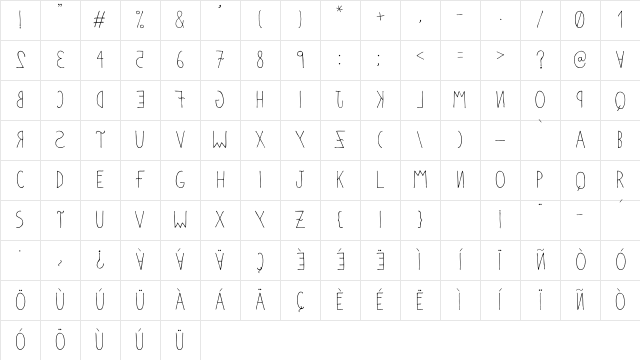
Anomalias Molestar Regular Free Font
Anomalias Molestar Regular
Foundry: The Monotype Corporation
Designer: Monotype Type Drawing Office - Robin Nicholas, Patricia Saunders 1982
Design Context for Anomalias Molestar
Anomalias Molestar is a composed and adaptable typeface that performs quietly and consistently across a wide range of design contexts.